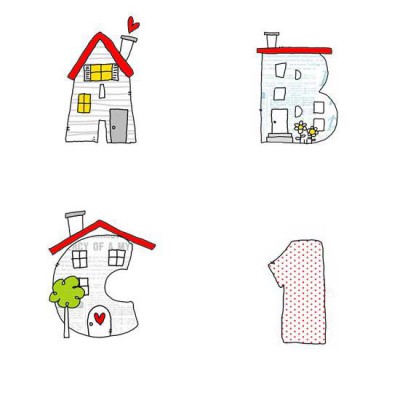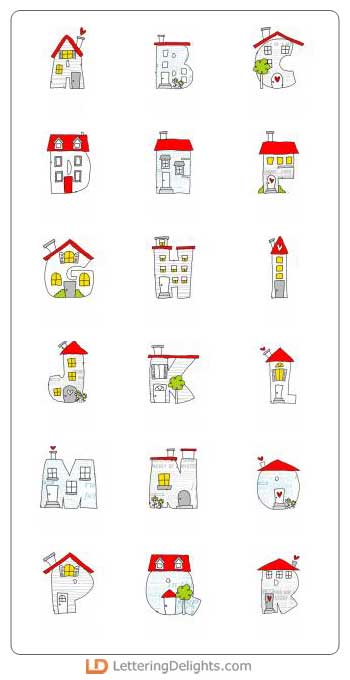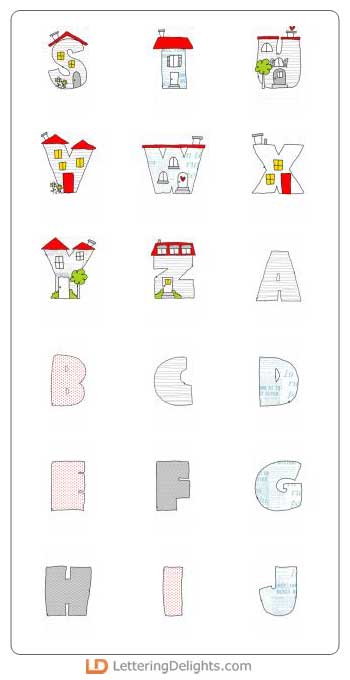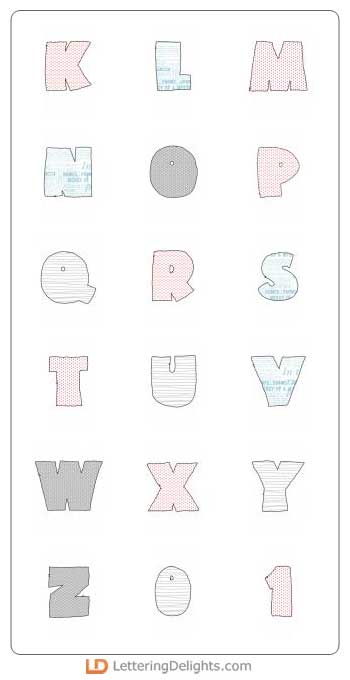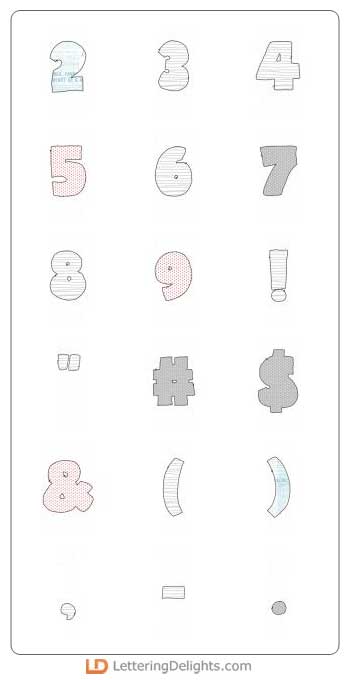
Looking for cute lettering for a nice title to a project or a product to add that special something to your digital scrapbook page? Look no further, Home Sweet Home alphabet combines the practicality of bubble lettering with cute homes adorning the alphabet.